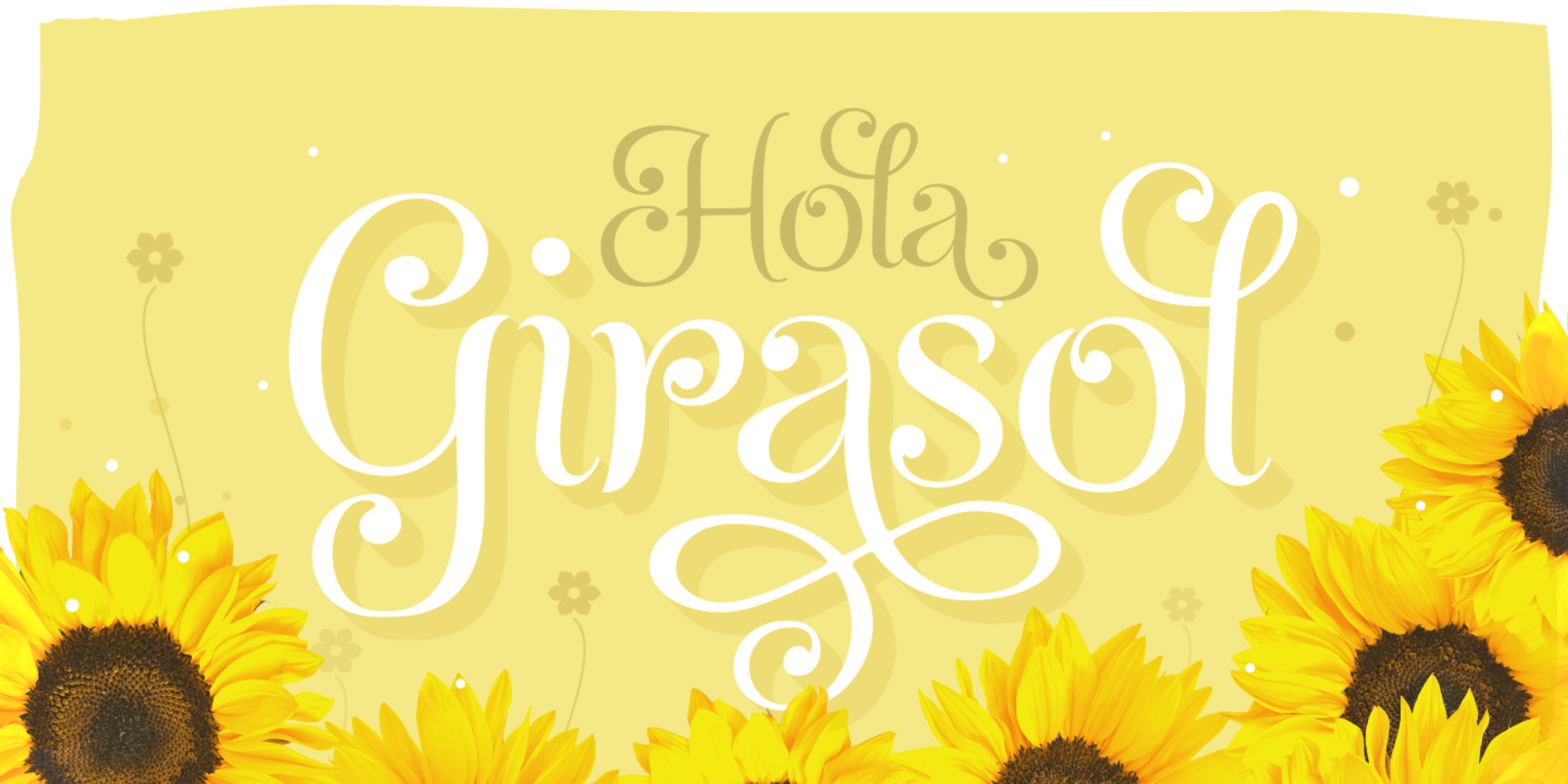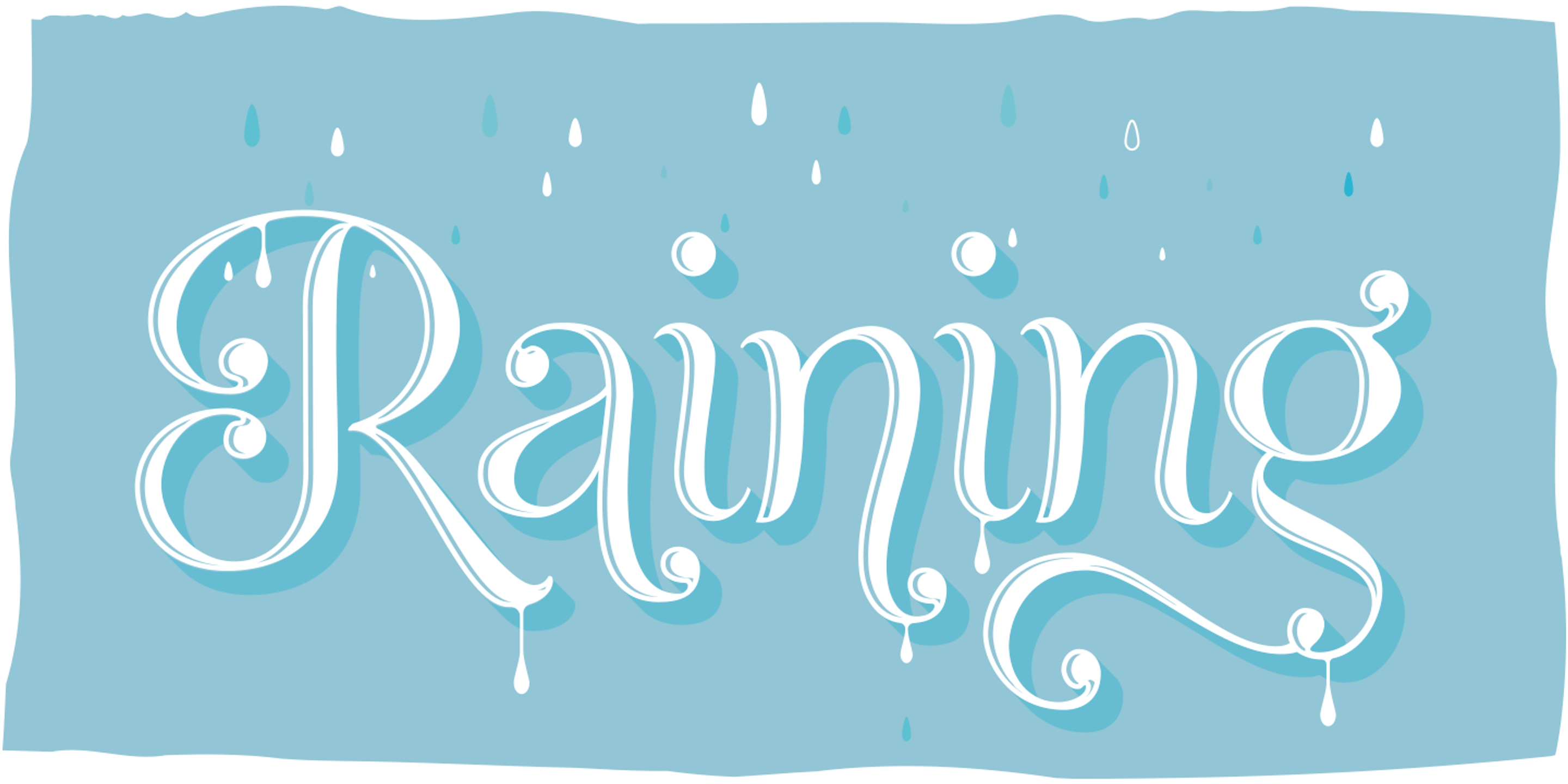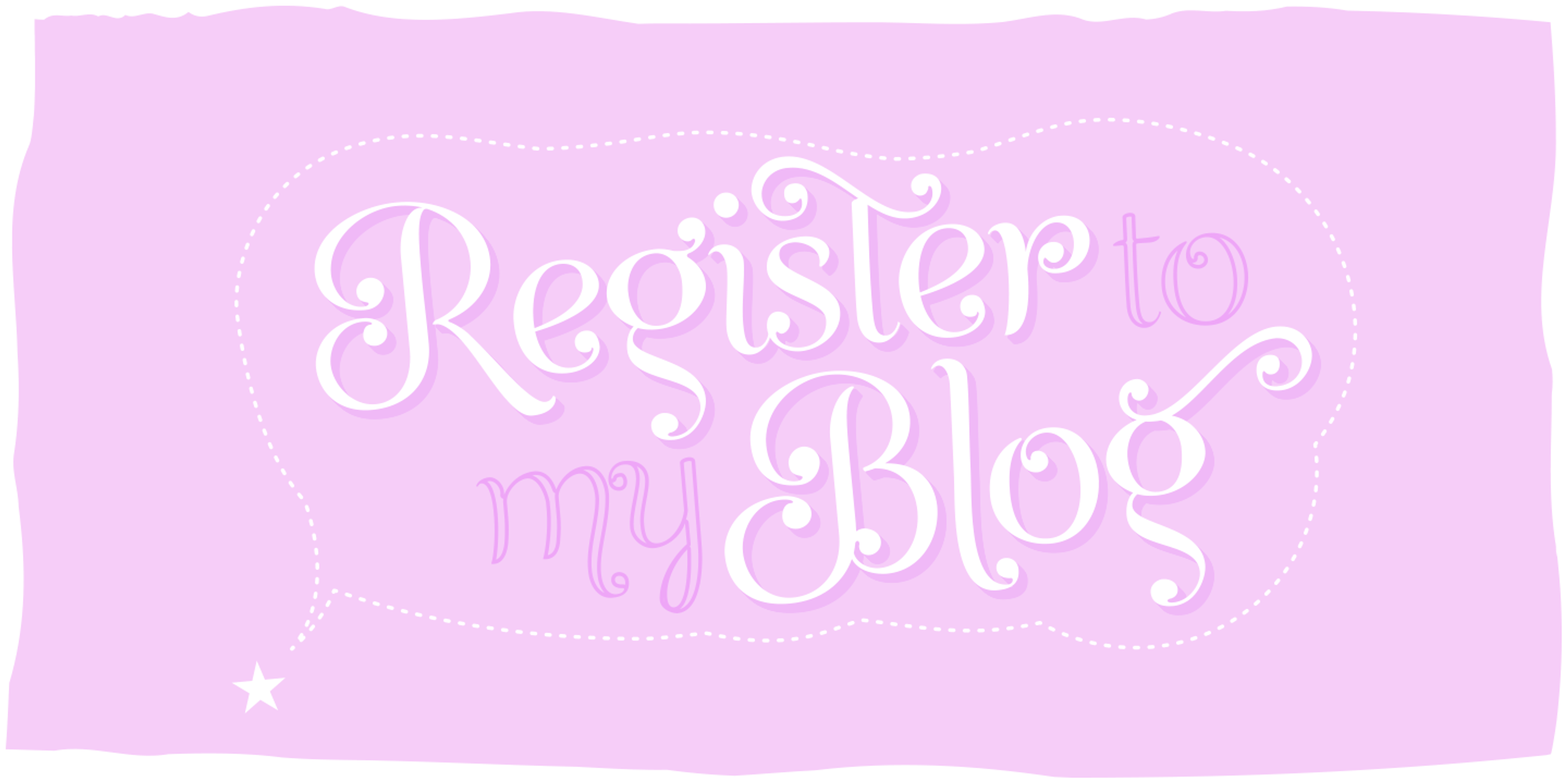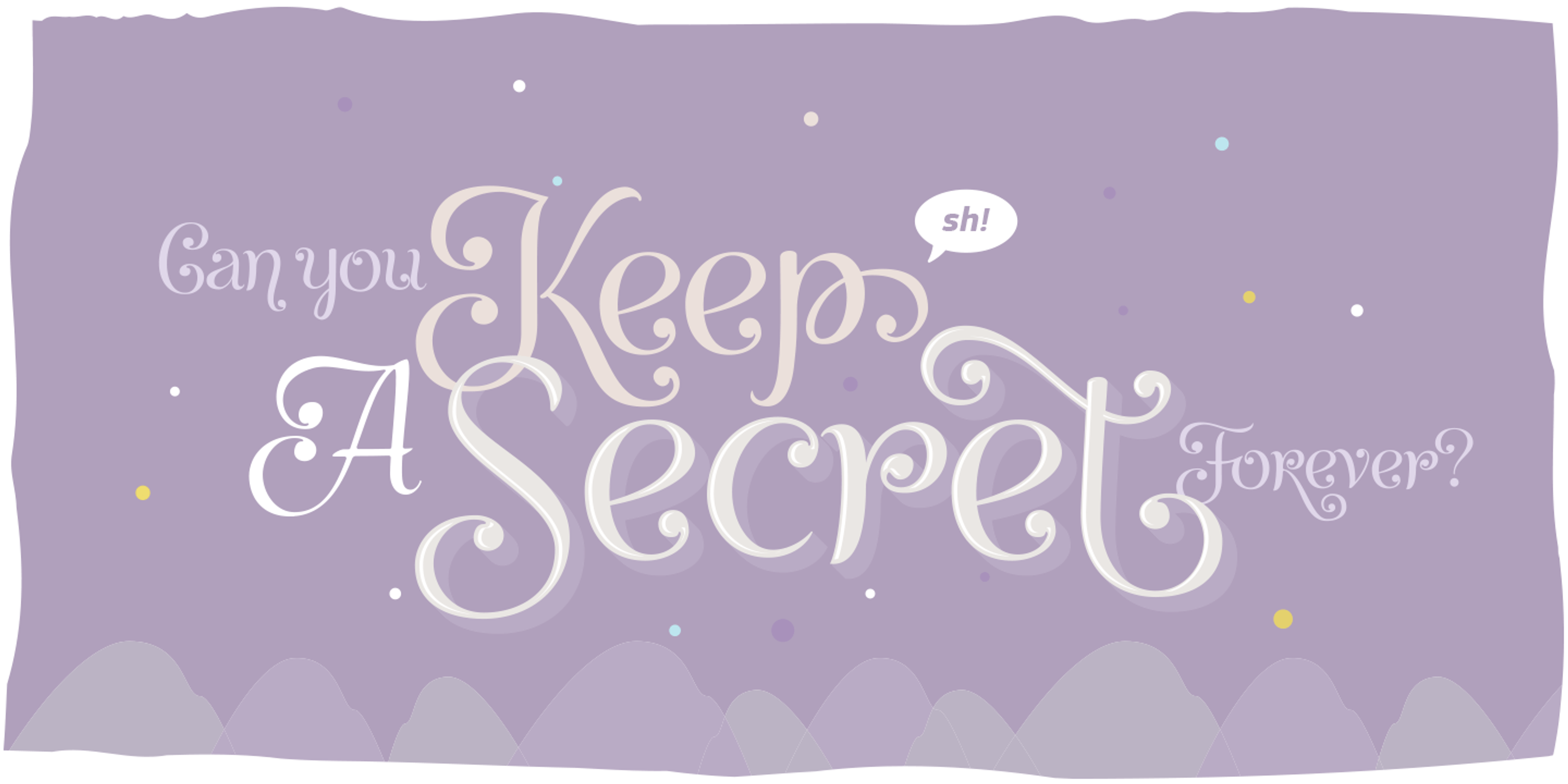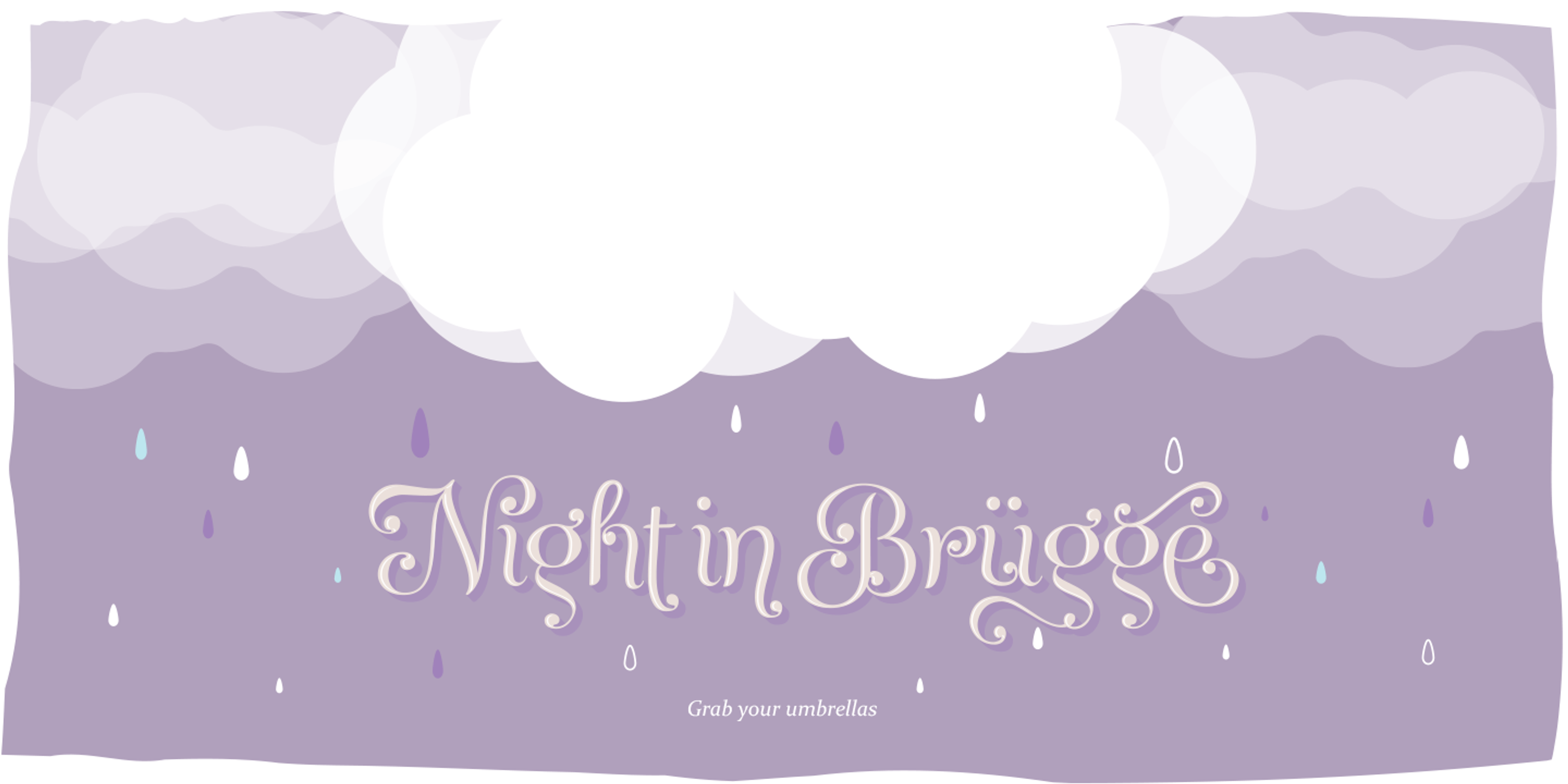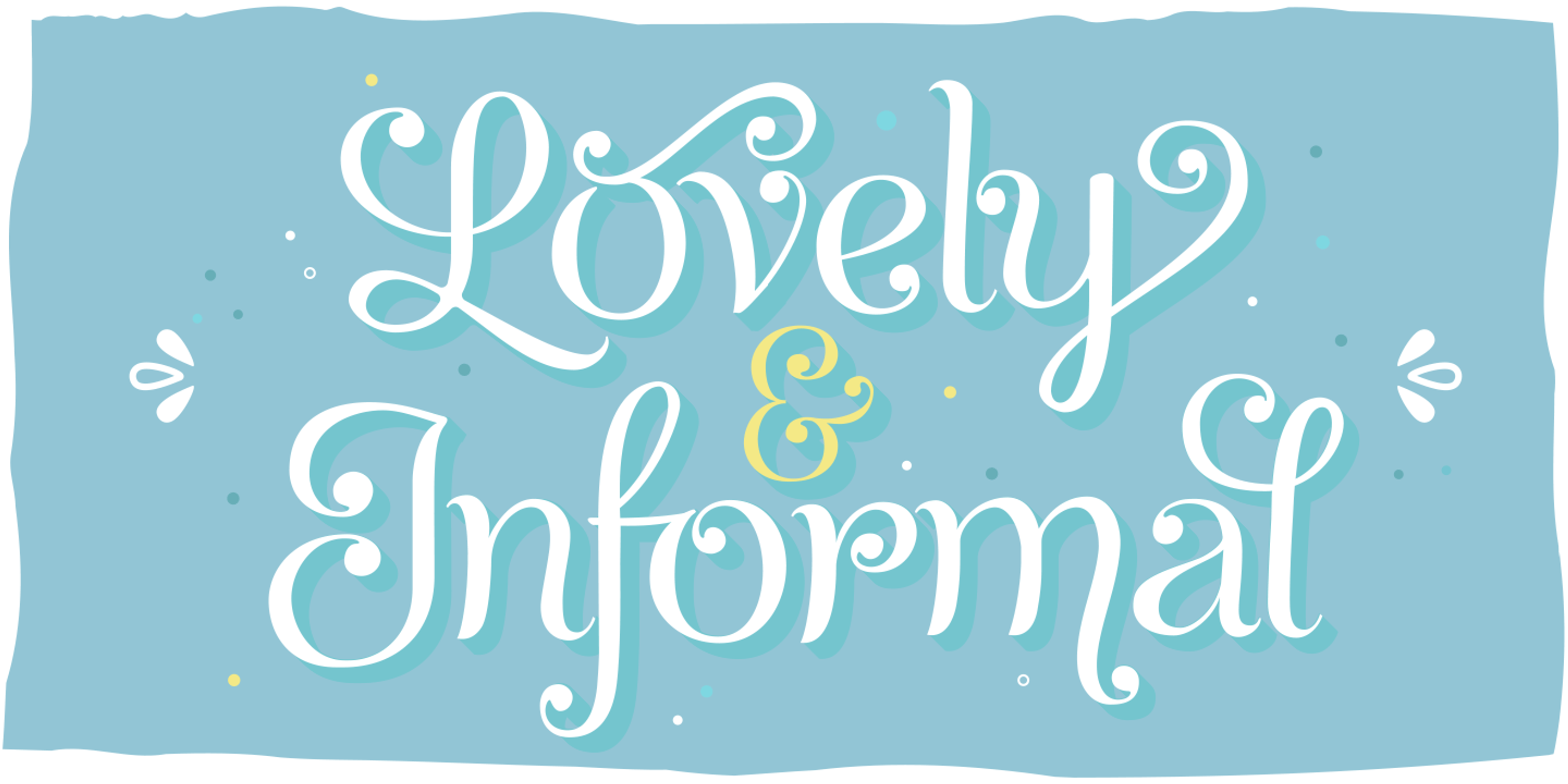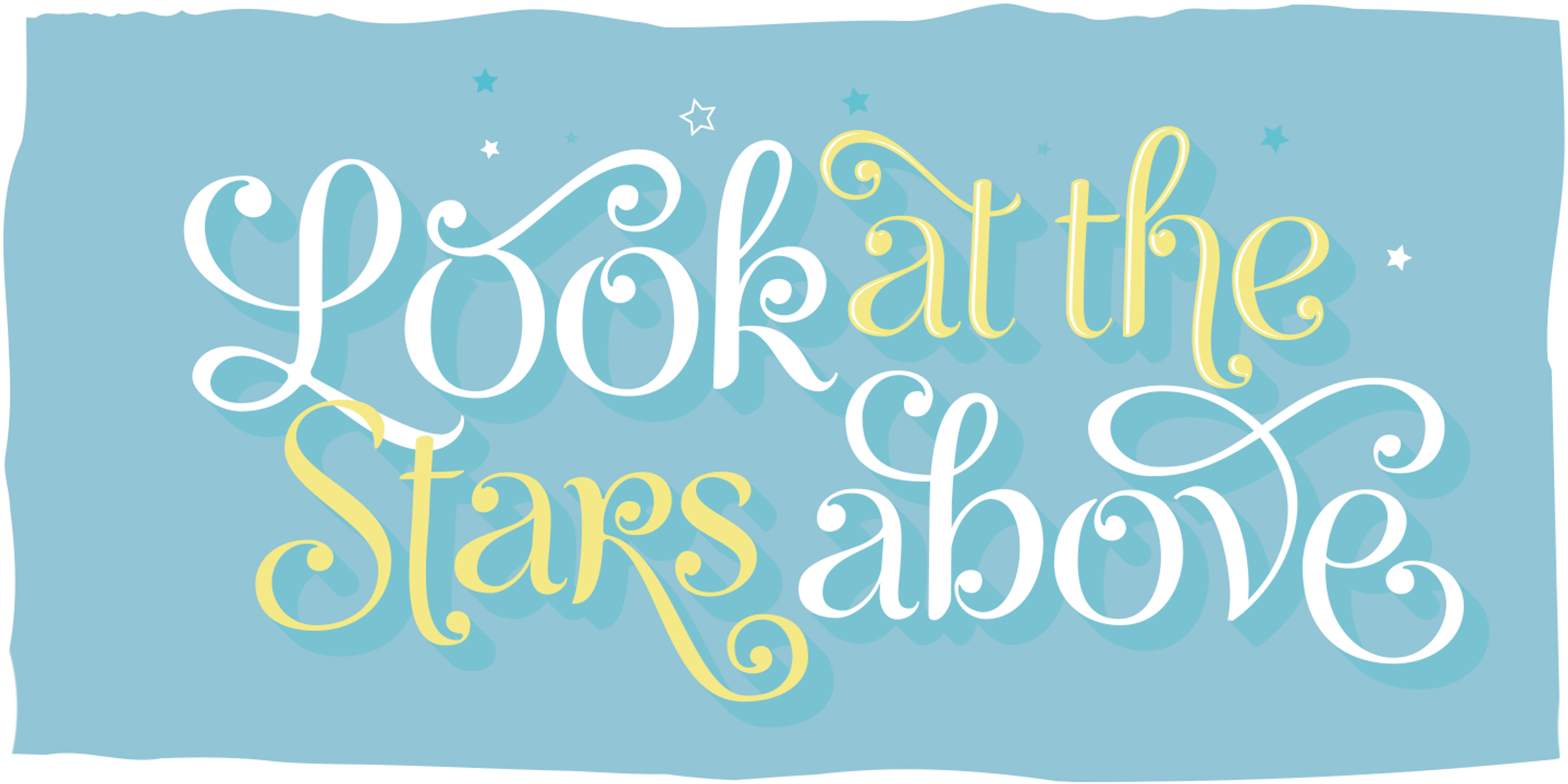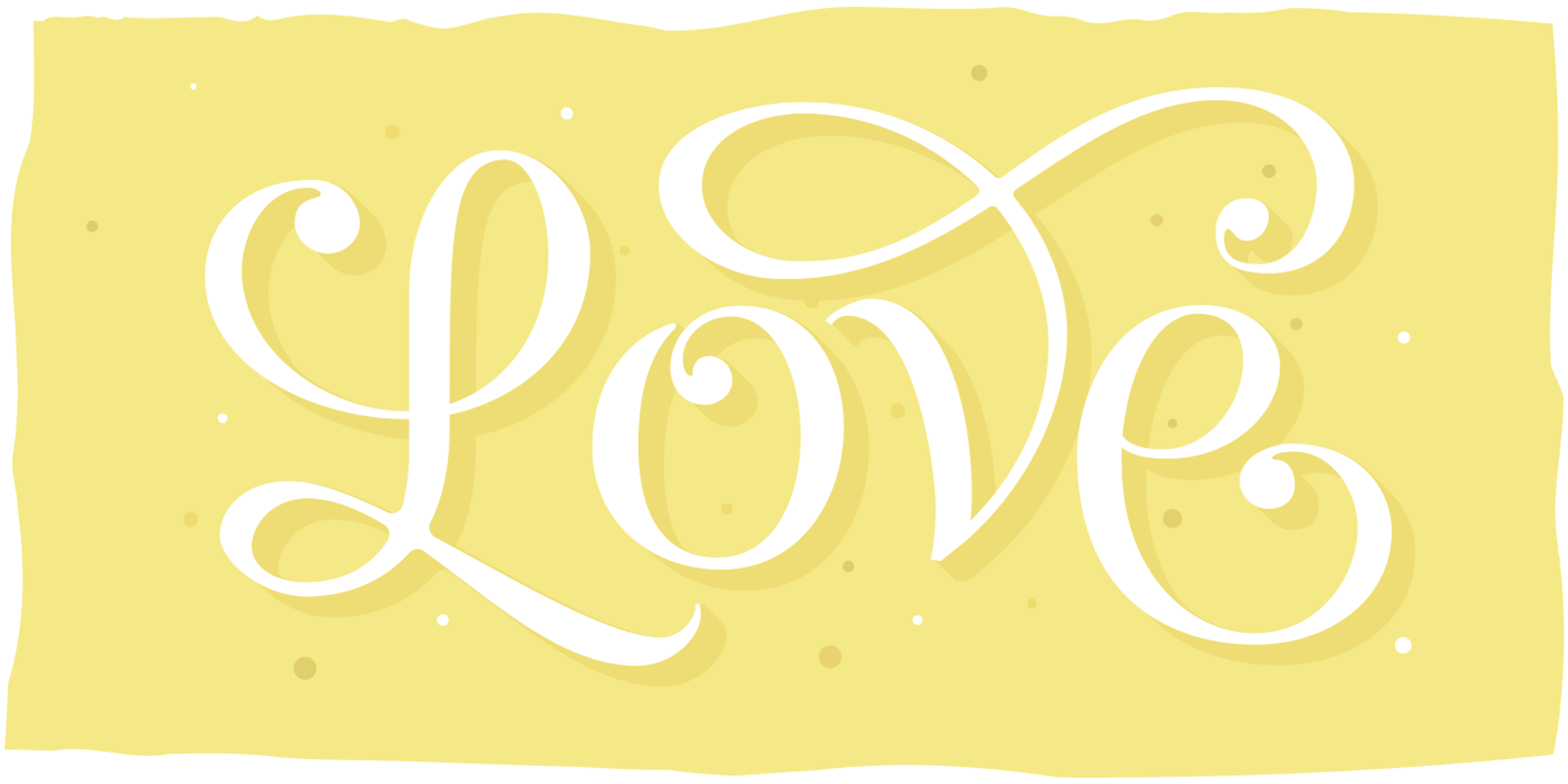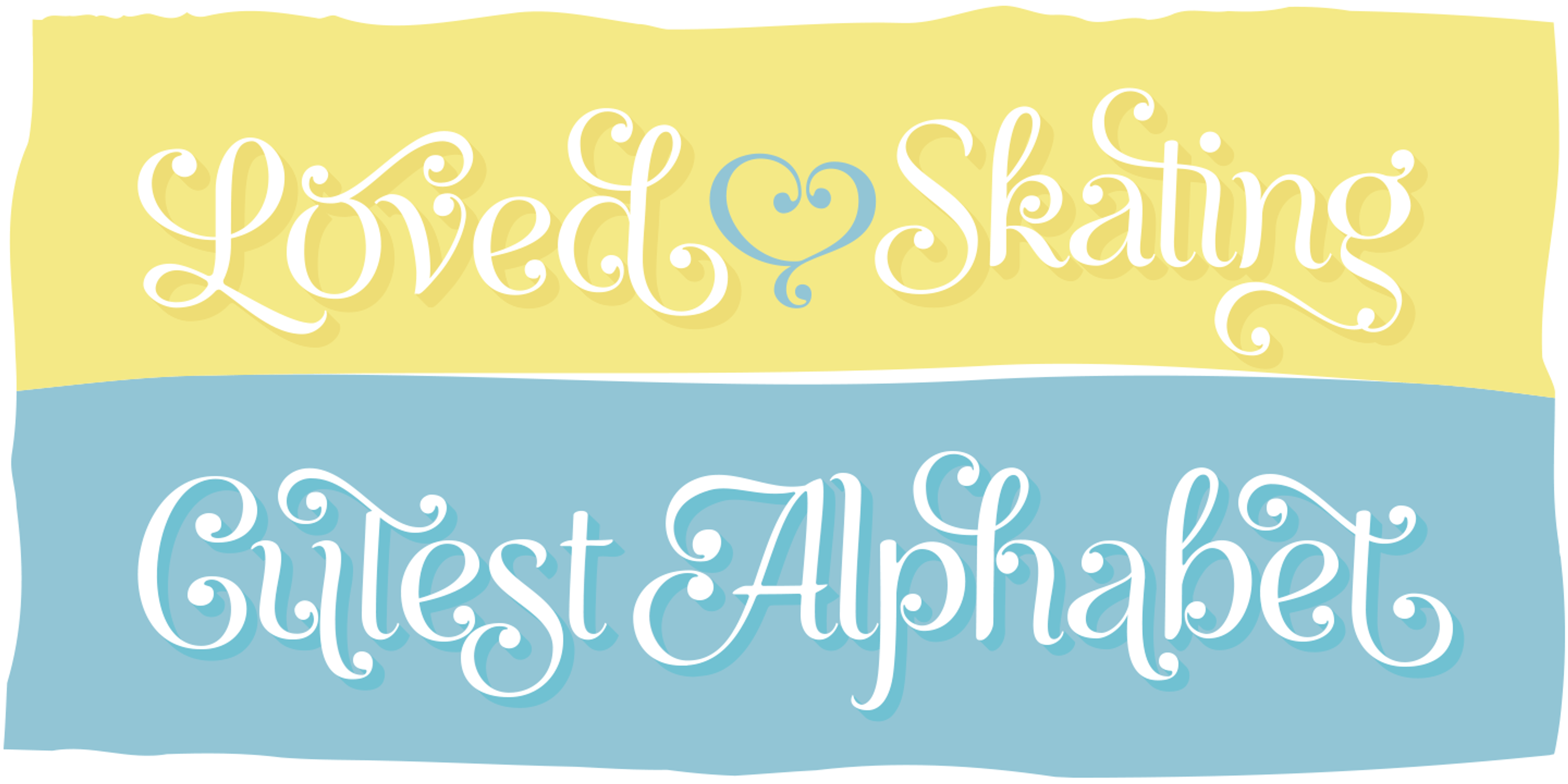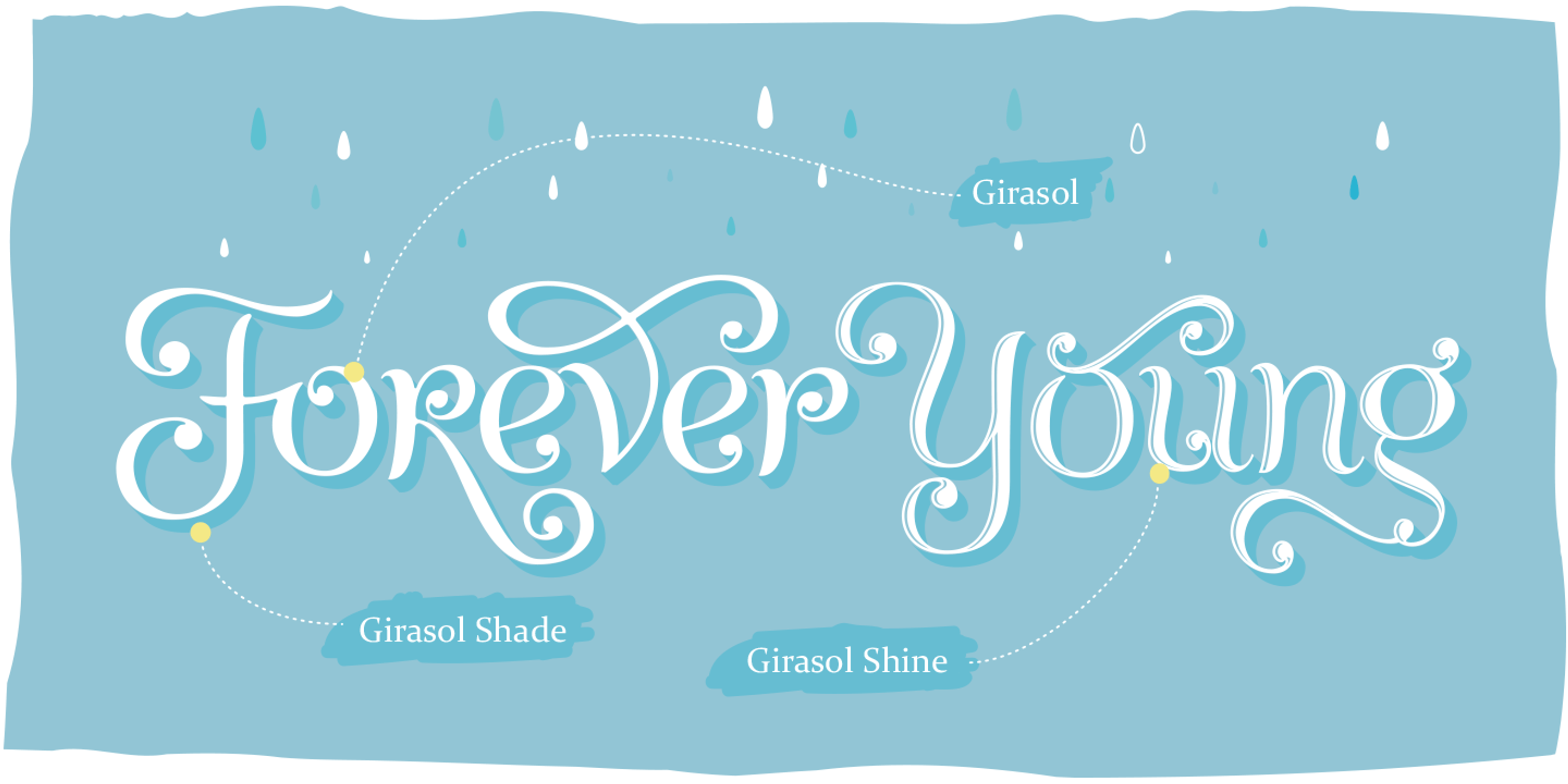
Girasol font by Sproviero Type — the word “Hola” in a light script above “Girasol” in a larger, white, connected script with swashes, all surrounded by sunflowers and small floral motifs
Girasol font by Sproviero Type — the words “Lovely” and “Informal” in a connected script, with a yellow ampersand between them, all with a subtle drop shadow and surrounded by small dots and floral motifs.
Girasol font by Sproviero Type — the words “Look at the Stars above” in a connected script, with “Look” and “above” in white and “at the Stars” in yellow, all with a light blue shadow, and scattered small stars.
Girasol font by Sproviero Type — the word “Love” in a connected script with swashes and ball terminals, with a subtle drop shadow
Girasol font by Sproviero Type — the words “Loved Skating” with a heart icon between the two words, and “Cutest Alphabet” below, all in a decorative connected script with swashes and ball terminals
Girasol font by Sproviero Type — the words “Forever Young” in a decorative connected script with swashes and ball terminals, with falling teardrop shapes above
Girasol font by Sproviero Type — the connected script words “Listen to your Friends” with “Listen” and “Friends” in white and “to your” in yellow, with a small heart icon above the “o” in “to”, and many small "+1" icons scattered around
Girasol font by Sproviero Type — the words “Wonderful Lettering” in a decorative, connected script, with “Wonderful” in yellow and “Lettering” in blue, all within a blue-outlined, white-filled ornamental frame with corner flourishes
Girasol font by Sproviero Type — the words “Lovely” in white and “Informal” in yellow, both in a connected script, with a small ampersand in between.
Girasol font by Sproviero Type — the word “Raining” in a decorative script with swashes and drips, surrounded by falling raindrops and bubbles
Girasol font by Sproviero Type — the words “Register to my Blog” in a decorative upright script, with “Register” and “Blog” in a heavier weight and “to my” in a lighter weight, all within a dotted-line speech bubble with a star at its tail
Girasol font by Sproviero Type — the phrase “Can you Keep A Secret Forever?” in a decorative upright script, with “sh!” in a speech bubble.
Girasol font by Sproviero Type — the words “Night in Brügge” in a decorative upright script with swirly terminals, above the words “Grab your umbrellas”, all against a background of stylized clouds and falling raindrops
Girasol Regular
Girasol Shade
Girasol Shine
Ligatures
Discretionary Ligatures
Ornaments
Stylistic Alternates
Swashes
Stylistic Set 1
Stylistic Set 2
Stylistic Set 3
Stylistic Set 4
Titling
Final Forms